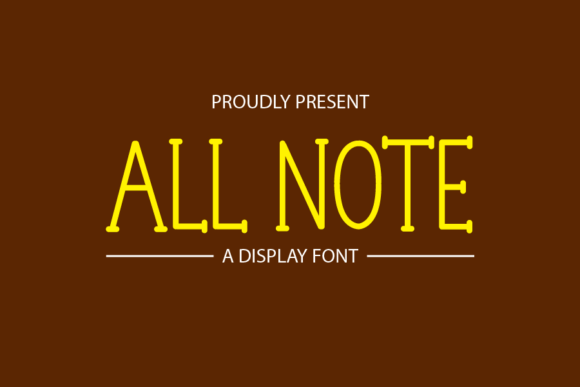
Introducing All Note Font, a stroke of handwritten bliss that infuses your designs with a touch of warmth and charm. This display font family, crafted by the skillful merge354, captivates with its unique style, making it the perfect choice for a diverse range of creations.
Step into a world of limitless possibilities, where All Note's natural flow complements your designs seamlessly. Whether you're crafting elegant wedding invitations, heartfelt greeting cards, or playful social media posts, this font adds a personal touch that resonates with your audience.
Unleash your imagination and let All Note take center stage. Its enchanting curves and playful strokes bring life to your words, evoking a sense of authenticity and connection. From delicate branding projects to whimsical illustrations, All Note effortlessly weaves its magic into any design concept.
Embrace the art of handwritten beauty with All Note. Its versatility knows no bounds, making it a must-have in your font collection. Dive into the world of handwritten elegance and elevate your designs with a font that speaks volumes.